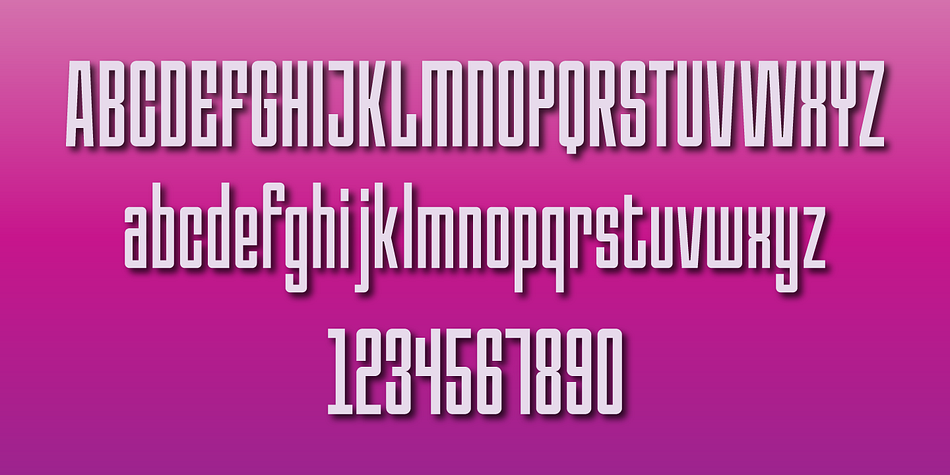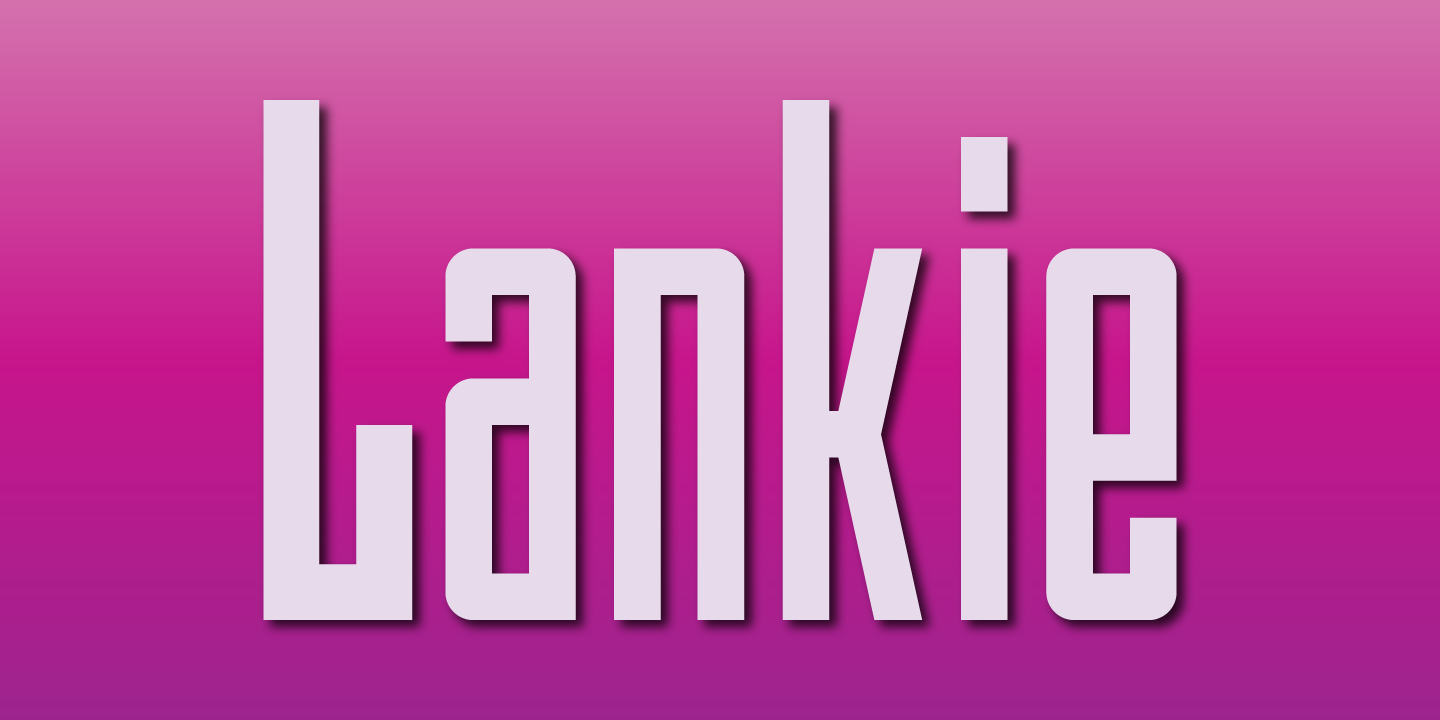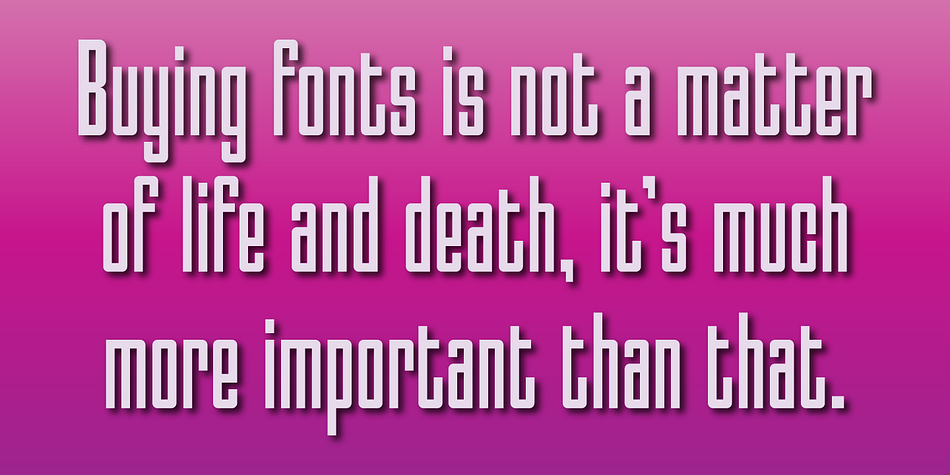
Designed by Gerald Gallo, Lankie is a display sans font family published by Gerald Gallo Fonts.
Lankie is a clean, contemporary, geometric, condensed sans serif font. The font is ideal for headlines, titles, branding and small blocks of text.